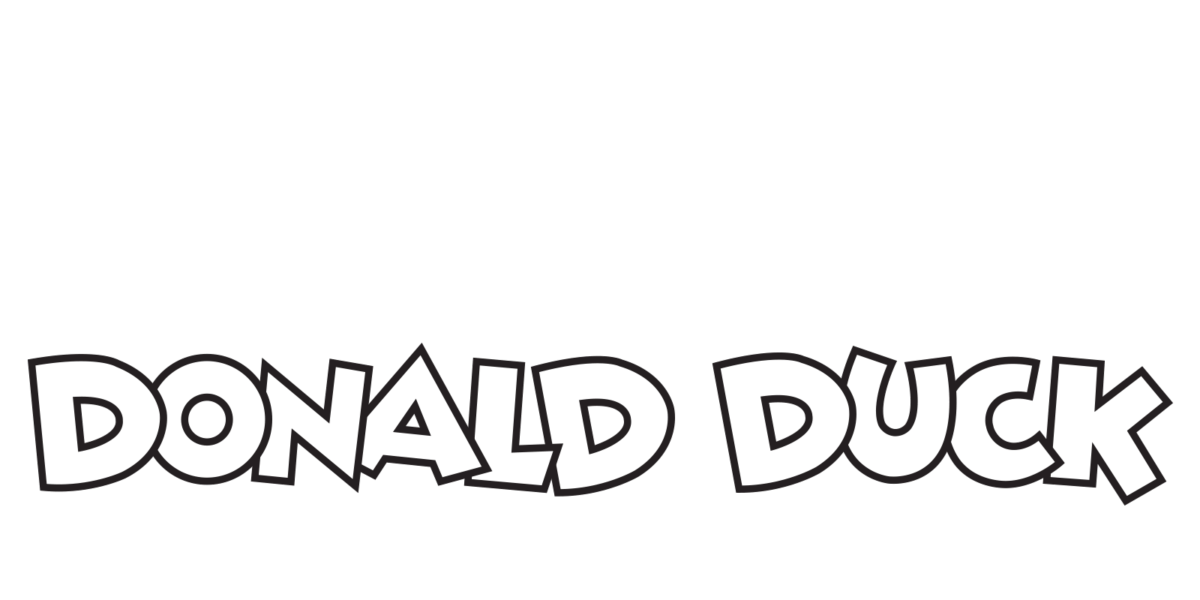
Donald Duck Font - Archive of freely downloadable fonts. Generate every disney design here, for free. Explore donald duck fonts at myfonts. We have fonts for frozen, mickey mouse, disney movies, and even walt's signature font! I'm trying to identify the font used in donald duck comics from the netherlands, image attached. Browse by alphabetical listing, by style, by author or by popularity. Browse by alphabetical listing, by style, by author or by popularity. I find it a very clear and legible font. Unleash your design potential today! Free text styling effects with our online font generator for donald duck.
Browse by alphabetical listing, by style, by author or by popularity. Browse by alphabetical listing, by style, by author or by popularity. Free text styling effects with our online font generator for donald duck. Archive of freely downloadable fonts. Generate every disney design here, for free. Archive of freely downloadable fonts. Discover a world of captivating typography for your creative projects. Explore donald duck fonts at myfonts. I find it a very clear and legible font. We have fonts for frozen, mickey mouse, disney movies, and even walt's signature font!
Explore donald duck fonts at myfonts. We have fonts for frozen, mickey mouse, disney movies, and even walt's signature font! Free text styling effects with our online font generator for donald duck. I'm trying to identify the font used in donald duck comics from the netherlands, image attached. I find it a very clear and legible font. Archive of freely downloadable fonts. Browse by alphabetical listing, by style, by author or by popularity. Browse by alphabetical listing, by style, by author or by popularity. Discover a world of captivating typography for your creative projects. Archive of freely downloadable fonts.
Donald Duck Font
I'm trying to identify the font used in donald duck comics from the netherlands, image attached. Unleash your design potential today! Browse by alphabetical listing, by style, by author or by popularity. Discover a world of captivating typography for your creative projects. Browse by alphabetical listing, by style, by author or by popularity.
Donald Duck Font
Discover a world of captivating typography for your creative projects. Explore donald duck fonts at myfonts. Generate every disney design here, for free. I find it a very clear and legible font. I'm trying to identify the font used in donald duck comics from the netherlands, image attached.
Donald Duck Font
Generate every disney design here, for free. I find it a very clear and legible font. Explore donald duck fonts at myfonts. Browse by alphabetical listing, by style, by author or by popularity. Archive of freely downloadable fonts.
Free text styling effects with our online font generator for donald duck. Archive of freely downloadable fonts. Browse by alphabetical listing, by style, by author or by popularity. Discover a world of captivating typography for your creative projects. Generate every disney design here, for free.
Donald Duck Font
Explore donald duck fonts at myfonts. I find it a very clear and legible font. Free text styling effects with our online font generator for donald duck. Generate every disney design here, for free. Archive of freely downloadable fonts.
Donald Duck Font
Generate every disney design here, for free. I'm trying to identify the font used in donald duck comics from the netherlands, image attached. Discover a world of captivating typography for your creative projects. Archive of freely downloadable fonts. I find it a very clear and legible font.
Browse by alphabetical listing, by style, by author or by popularity. Archive of freely downloadable fonts. Explore donald duck fonts at myfonts. Archive of freely downloadable fonts. I'm trying to identify the font used in donald duck comics from the netherlands, image attached.
Unleash your design potential today! Generate every disney design here, for free. I'm trying to identify the font used in donald duck comics from the netherlands, image attached. I find it a very clear and legible font. Explore donald duck fonts at myfonts.
Free text styling effects with our online font generator for donald duck. Generate every disney design here, for free. We have fonts for frozen, mickey mouse, disney movies, and even walt's signature font! Explore donald duck fonts at myfonts. I find it a very clear and legible font.
Generate Every Disney Design Here, For Free.
Archive of freely downloadable fonts. Explore donald duck fonts at myfonts. We have fonts for frozen, mickey mouse, disney movies, and even walt's signature font!
I Find It A Very Clear And Legible Font.